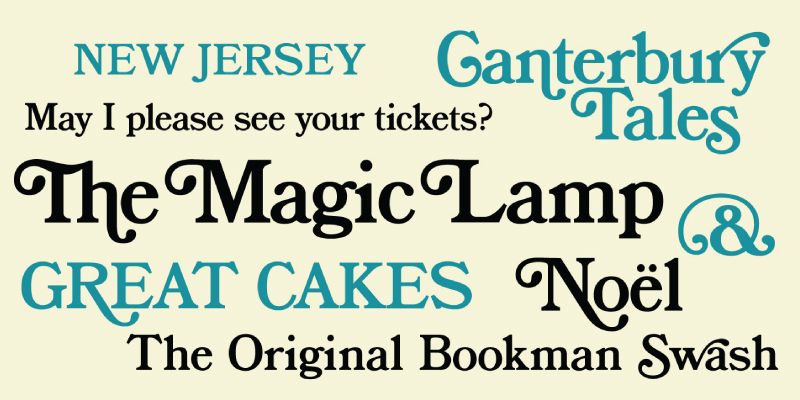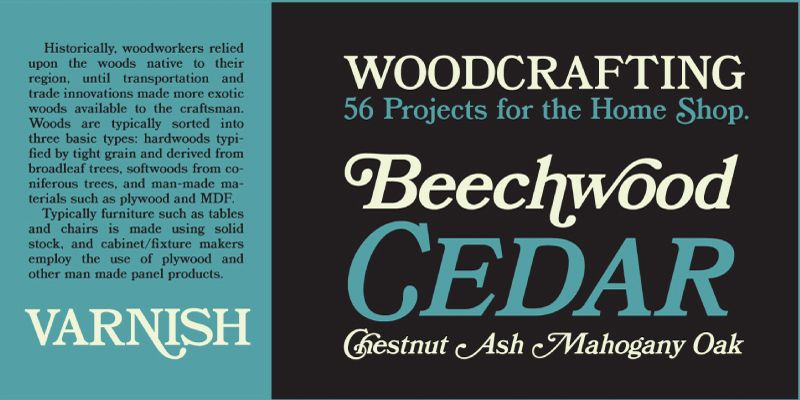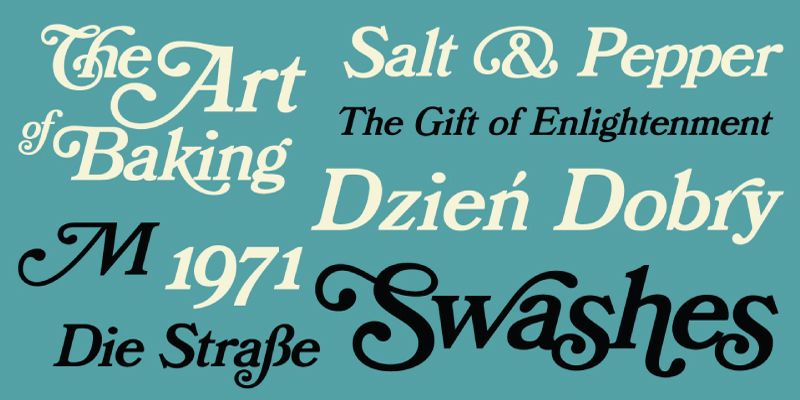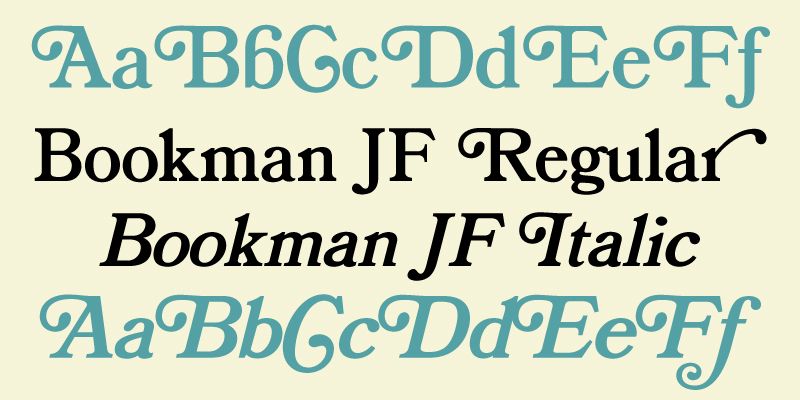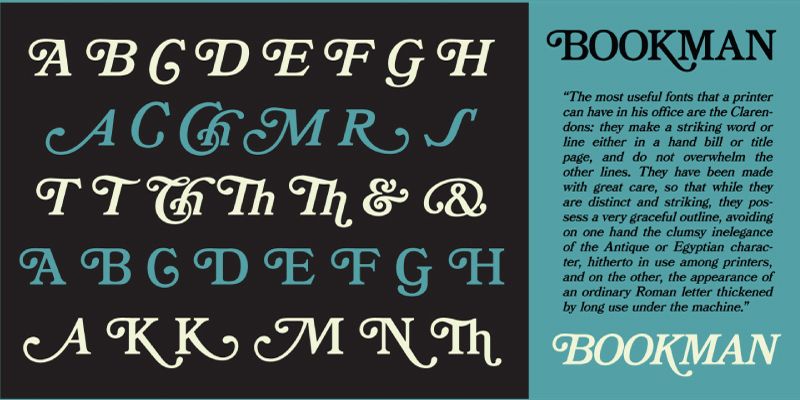
BookmanJF is the classic “Bookman Swash” font that has been beloved by designers for decades. It’s a Clarendon style font that evokes design eras from the early 20th Century right through to today.